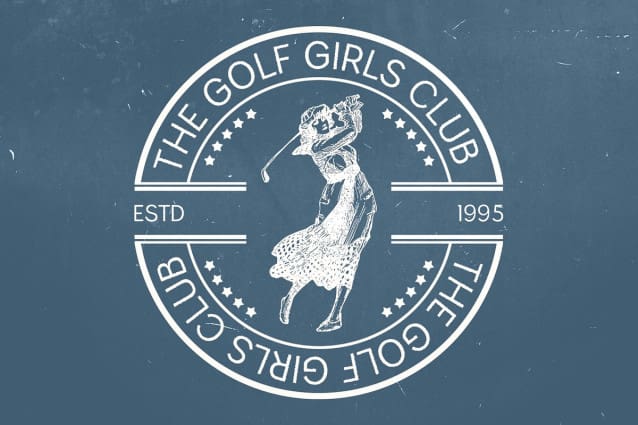
Varena Rough Font
Varena Rough Font is a modern sans-serif font that embodies sleek, minimalist design principles. Its clean, simple forms create an elegant and contemporary look, with smooth lines and ample white space contributing to a refined and efficient appearance.
Unique Rough Effect for Added Dimension The addition of a rough effect introduces a contrasting coarse texture, adding dimension and character to the font. This textural touch provides an artisanal, visually intriguing element that sets Varena Rough apart from other minimalist designs.
Balancing Modern Elegance with Artisanal Flair Varena Rough combines the sophistication of modern sans-serif design with a distinctive rough effect. This blend of clean aesthetics and textured detail results in a font that is both elegant and unique, making it ideal for contemporary projects that require a refined look with a touch of individuality.
Versatile for Various Modern Design Needs From stylish branding to sleek website design, Varena Rough’s combination of minimalist forms and rough texture makes it a versatile choice for a range of modern projects. Its clean lines and distinctive character ensure that your designs stand out with both sophistication and individuality.